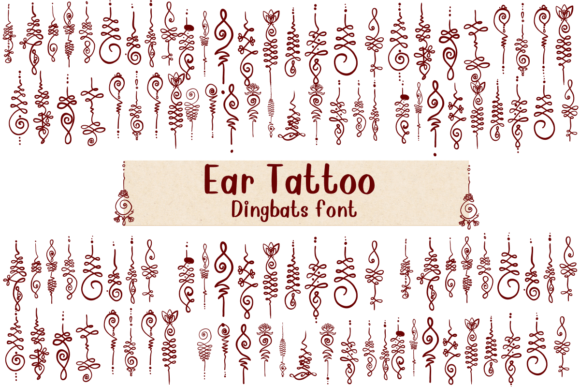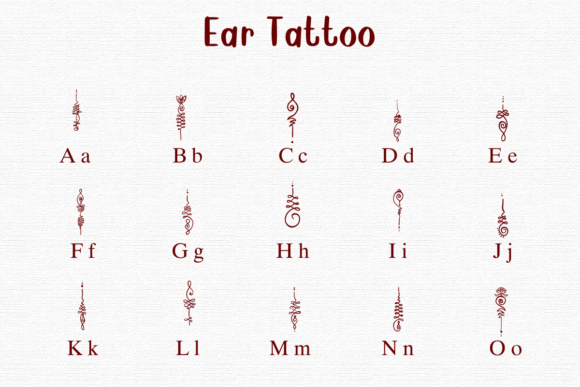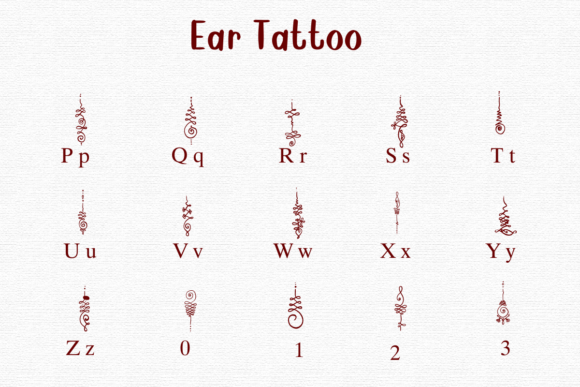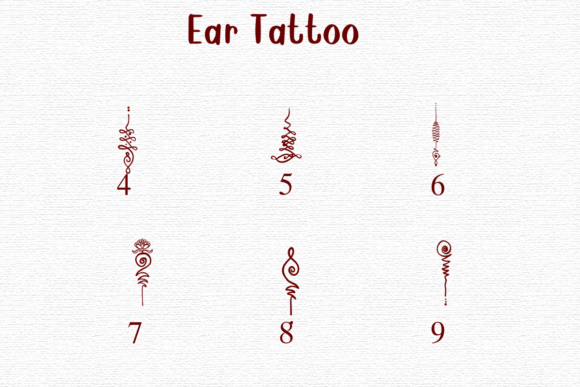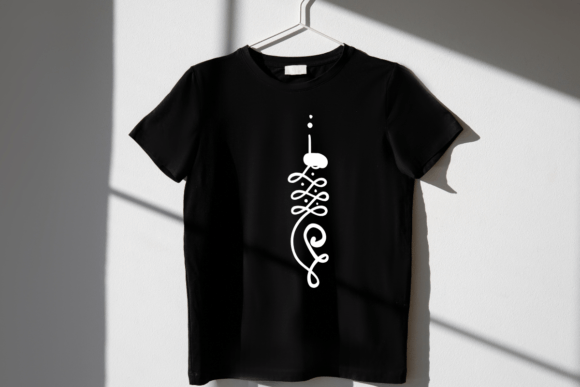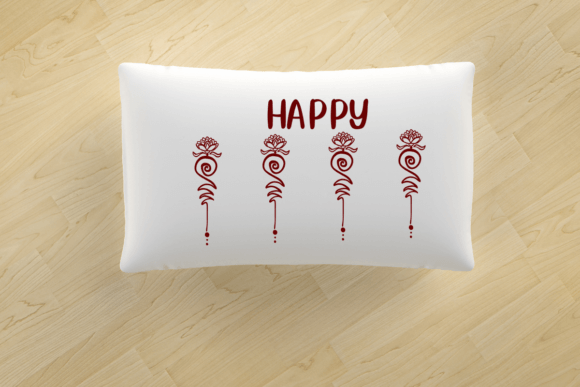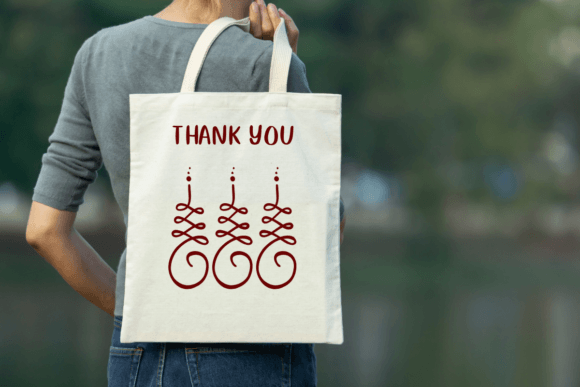
Getting Inkspired: The Cutest Font You Never Knew You Needed
Have you ever been scrolling through social media, and a design catches your eye? Maybe it’s the playful use of fonts, the whimsical illustrations, or the way the text seems to dance across the page? That’s exactly what happened to us when we stumbled upon the Ear Tattoo Font – a fun dingbat font filled with adorable tattoos that will make you go weak in the knees!
Each letter is designed like a cute little tattoo you might find on someone’s ear, and it’s perfect for adding a playful touch to your designs or messages. As designers, we know how much of a difference a font can make in elevating a project from meh to mesmerizing. That’s why we’re excited to share the Ear Tattoo Font with you – it’s a game-changer for anyone looking to add a little whimsy to their work.
Key Features of Ear Tattoo Font
- Font Styles: Ear Tattoo Font offers a range of font styles, including bold, italic, and regular, to cater to different design preferences.
- Size and Resolution: Designed to be scalable, Ear Tattoo Font is suitable for use in various sizes, from small to large, and is optimized for high-resolution displays (up to 300 DPI).
- Unique Characteristics: The font features a unique, hand-drawn design with intricate details and subtle imperfections, giving it a distinctive and eye-catching look.
- Character Set: Ear Tattoo Font includes a comprehensive character set, including uppercase and lowercase letters, numbers, and punctuation marks, making it suitable for a wide range of applications.
Ear Tattoo Font Review
I recently had the chance to experiment with the Ear Tattoo Font, and I must say, it’s a unique addition to any design project. ✨ One of the things that stands out is its playful, hand-drawn feel, which instantly gives your designs a personal touch. It’s perfect for those looking to add a bit of whimsy or personality to their work.
Another aspect I appreciate is its versatility – the font can be used for a wide range of projects, from social media graphics to merchandise and even tattoo designs (no pun intended). The font comes in various styles and sizes, allowing you to customize it to fit your specific needs.
While the Ear Tattoo Font has many great qualities, there are some limitations to consider:
- ⚠️ The font may not be suitable for formal or professional projects, as its playful feel may come across as unprofessional.
- ⚠️ Some characters may not be available in all languages, which could be a limitation for global projects.
- ⚠️ The font may require some tweaking to get it looking just right, especially for smaller text sizes.
Overall, I think the Ear Tattoo Font is a great addition to any designer’s toolkit. While it may not be the best choice for every project, it’s perfect for those looking to add a bit of personality and whimsy to their designs. With a little experimentation, you can unlock its full potential and create some truly unique and eye-catching designs.
Ear Tattoo Font Practical Application Guide
Using Ear Tattoo Font in PowerPoint or Word is similar to using it in Canva. Select the “Text” element from the toolbar, choose the Ear Tattoo Font, and adjust the size and color as desired. To add a touch of realism, use the “Effects” tab to add a subtle gradient or shadow to the text.
For a more realistic tattoo effect, use a bold font size and a dark color. Experiment with different font sizes and colors to achieve the desired look.
Use the Ear Tattoo Font in combination with other design elements, such as images or graphics, to create a unique and eye-catching design.
Consider using a distressed or worn effect to give the text a vintage or tattooed look.
Ear Tattoo Font is ideal for creating designs that resemble tattoo art, such as:
Personalized quotes or lyrics
Tattoo-inspired artwork
Can I customize a font for my ear tattoo design?
Yes, you can customize a font for your ear tattoo design. Many tattoo artists and designers use font editing software to customize fonts to fit specific designs. You can also work with a tattoo artist to create a custom font that suits your design and style. Keep in mind that custom fonts may require additional time and effort to create.